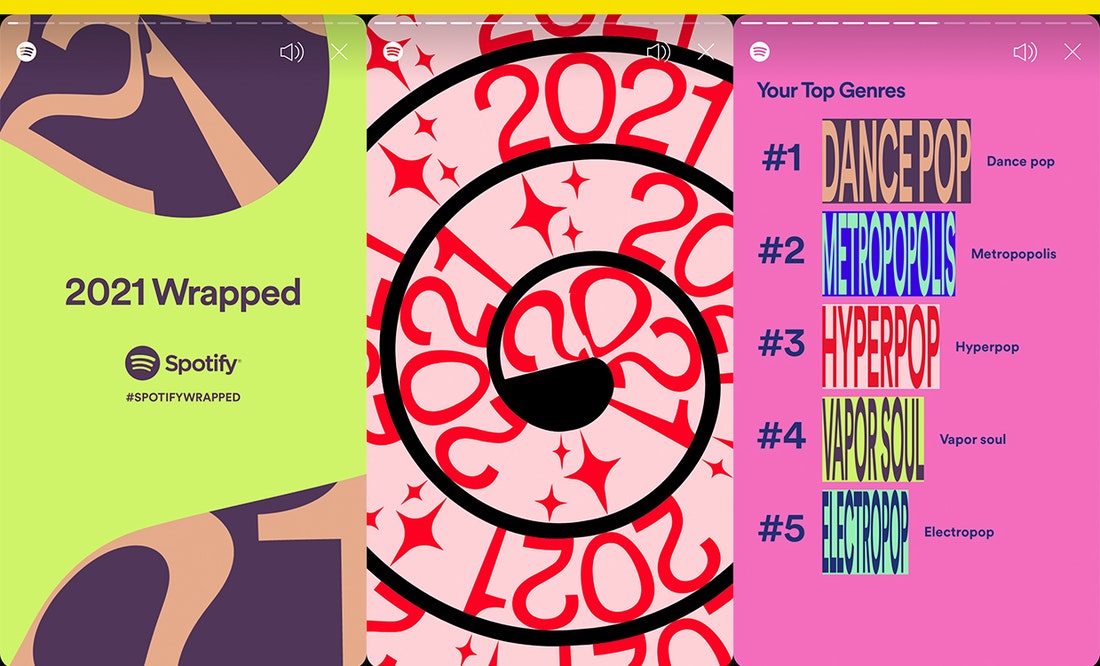
What Font Is Spotify Wrapped. Web the font that we can see on the spotify website used proxima nova in the past. Web spotify is now using circular in their ios app.
Web the font used by spotify is spotify circular, a modified version of gotham circular, available in four weights and italics. Web the spotify font features five weights: Spotify wrapped 2022 is a typeface that was designed by david berlow, taking. Web spotify has used geometric sans series typeface font for spotify wrapped 2022. Black, bold, medium, book, and light. A legendary and most popular font family in the type design market. Web archive of freely downloadable fonts. You can upload an image of the text to a site like whatthefont or tweet at a spotify designer and ask them. Web spotify is now using circular in their ios app. If you belong to the typography field then you will definitely see it.